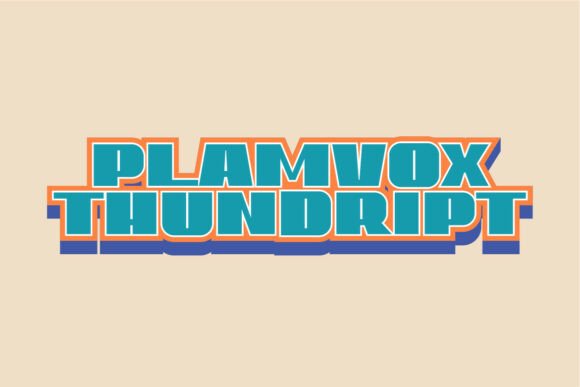
Azham Font: The Ultimate Display Font for Bold and Powerful Designs
When it comes to creating visually stunning designs that demand attention, the right font can make all the difference. Introducing Azham Font, a heavyweight display font designed to command attention with its bold letterforms and balanced geometric shapes. In this article, we’ll explore the features and benefits of Azham Font, and why it’s the perfect choice for projects that require a powerful presence.
What is Azham Font?
Azham Font is a bold and geometric display font that exudes strength and clarity. Its consistent stroke thickness ensures uniformity, making it an excellent choice for large-format and high-contrast designs. With its all-uppercase format, full set of numbers, punctuation, and multilingual character support, Azham Font provides versatility across languages and applications.
Key Features of Azham Font
- Bold Letterforms: Azham Font features bold and geometric letterforms that command attention and exude strength.
- Balanced Geometric Shapes: The font’s balanced geometric shapes ensure uniformity and clarity, making it perfect for large-format designs.
- All-Uppercase Format: Azham Font comes in an all-uppercase format, providing a consistent and powerful look.
- Full Set of Numbers, Punctuation, and Multilingual Character Support: The font includes a full set of numbers, punctuation, and multilingual character support, making it versatile across languages and applications.
- Consistent Stroke Thickness: The font’s consistent stroke thickness ensures uniformity and clarity, making it perfect for high-contrast designs.
Use Cases for Azham Font
Azham Font is ideal for a variety of design projects that require a bold and powerful presence. Some of the use cases include:
- Bold Logos: Azham Font is perfect for creating bold and attention-grabbing logos that make a statement.
- Attention-Grabbing Posters: The font’s bold letterforms and balanced geometric shapes make it ideal for creating attention-grabbing posters that demand attention.
- Product Packaging: Azham Font is a great choice for product packaging that requires a bold and powerful presence.
- Social Media Graphics: The font’s versatility and multilingual character support make it perfect for social media graphics that need to reach a wide audience.
- Sports and Urban Branding: Azham Font’s bold and geometric design makes it ideal for sports and urban branding that requires a strong and confident look.
- Large Signage: The font’s consistent stroke thickness and bold letterforms make it perfect for large signage that needs to be visible from a distance.
- Editorial Layouts: Azham Font is a great choice for editorial layouts that require a bold and powerful presence, such as magazine covers and article titles.
Benefits of Using Azham Font
Azham Font offers a range of benefits that make it an excellent choice for designers and businesses. Some of the benefits include:
- Instant Recognition: Azham Font’s bold letterforms and balanced geometric shapes ensure instant recognition and attention.
- Professional Look: The font’s consistent stroke thickness and bold design give every project a confident and professional look.
- Versatility: Azham Font’s all-uppercase format, full set of numbers, punctuation, and multilingual character support provide versatility across languages and applications.
- Timeless Design: The font’s geometric design ensures a timeless look that won’t go out of style.
In conclusion, Azham Font is a powerful display font that is perfect for projects that require a bold and powerful presence. Its bold letterforms, balanced geometric shapes, and consistent stroke thickness ensure instant recognition and attention. With its versatility, multilingual character support, and timeless design, Azham Font is an excellent choice for designers and businesses looking to create visually stunning designs that demand attention.
- What is Azham Font? Azham Font is a heavyweight display font designed to command attention with its bold letterforms and balanced geometric shapes.
- What are the key features of Azham Font? Azham Font features bold letterforms, balanced geometric shapes, an all-uppercase format, full set of numbers, punctuation, and multilingual character support, and consistent stroke thickness.
- What are the use cases for Azham Font? Azham Font is ideal for bold logos, attention-grabbing posters, product packaging, social media graphics, sports and urban branding, large signage, and editorial layouts.